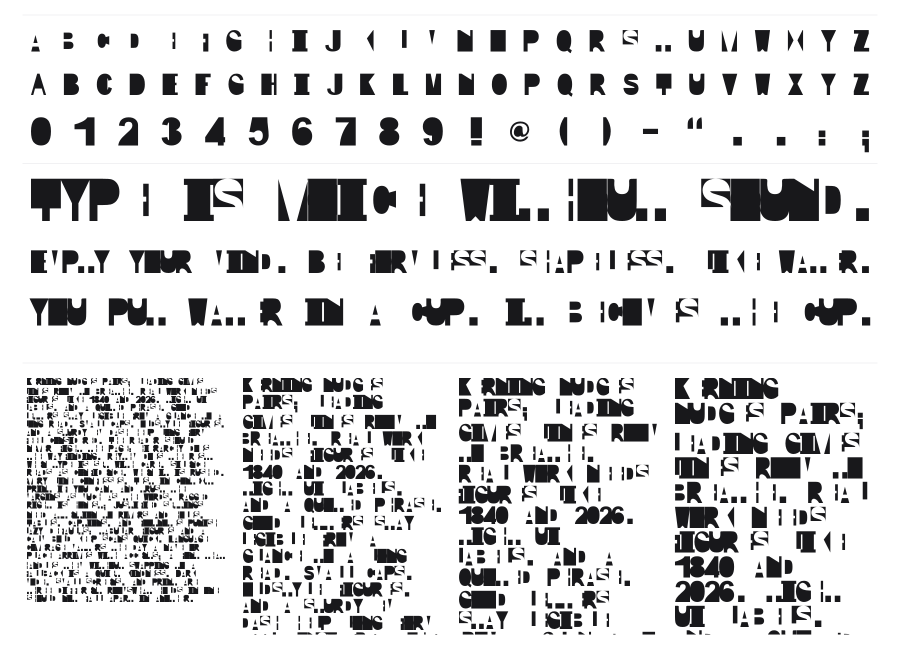
IP
IP is a deconstructed geometric display font where each character is sliced into fragments by white cuts, dissolving familiar forms into bold abstract shapes. The effect sits somewhere between Constructivist graphic design and contemporary digital abstraction. It commands attention at large sizes and makes legibility itself part of the visual tension.